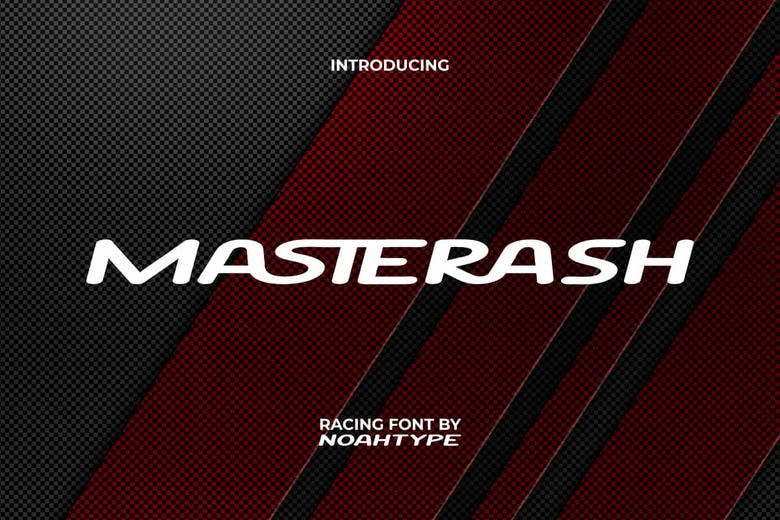
Masterash Font
Masterash is a fun sporty strong font with a racing sports theme. The font’s appearance is characterized by rounded edges that make it cool and stylish. This font will be suitable in various projects such as apps, billboard, blogs, brochure, business card, cover, flyer, header, logos, packaging design, poster, printing, quotes, screen print, signage, sticker, title, website, and others.
Masterash comes with a full set of ALL CAPS for Uppercase and Lowercase letters, Number, Punctuation, Symbol and Ligature. Racing sports themed fonts are truly super stylish, never disappoint and never go out of style!!
It has a simple design for easy reading, despite its simplicity this font can be adapted to the needs of any industry. This font will be suitable for ads, author, content creator, craft, fashion, game, gifts and merchandise, graphic design, menswear, printing, publishing, racing, sport, web designer, writer, etc.
Masterash Sans Serif Font